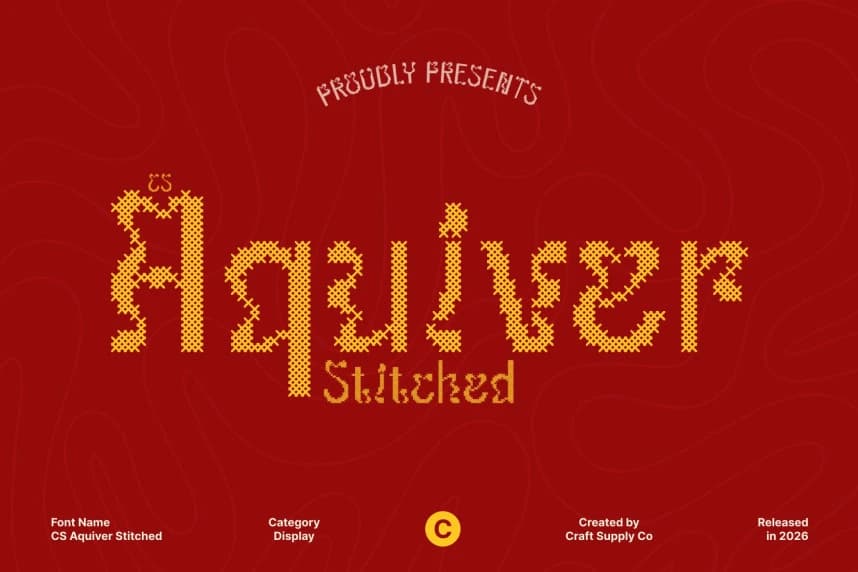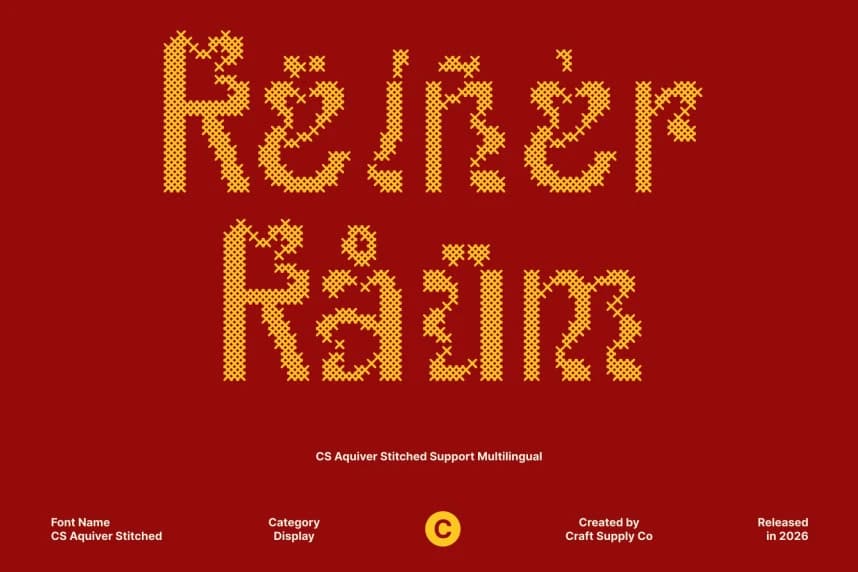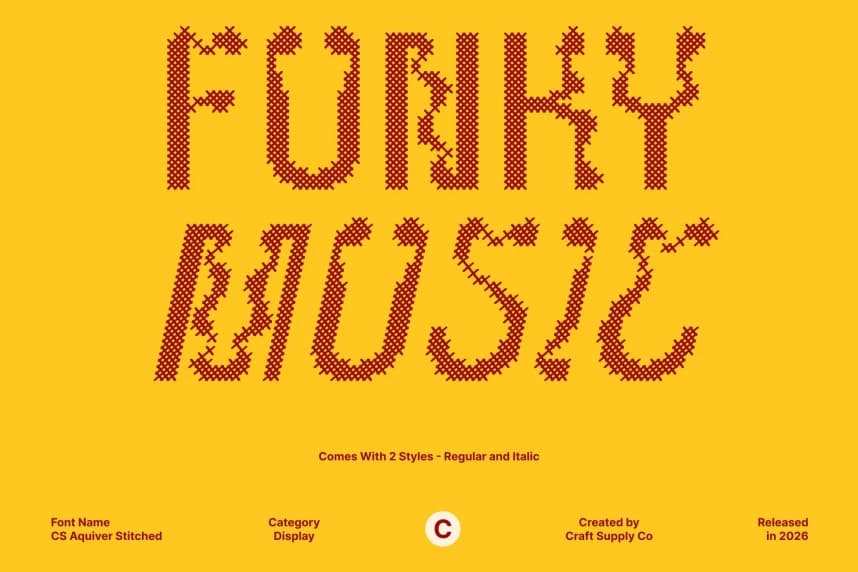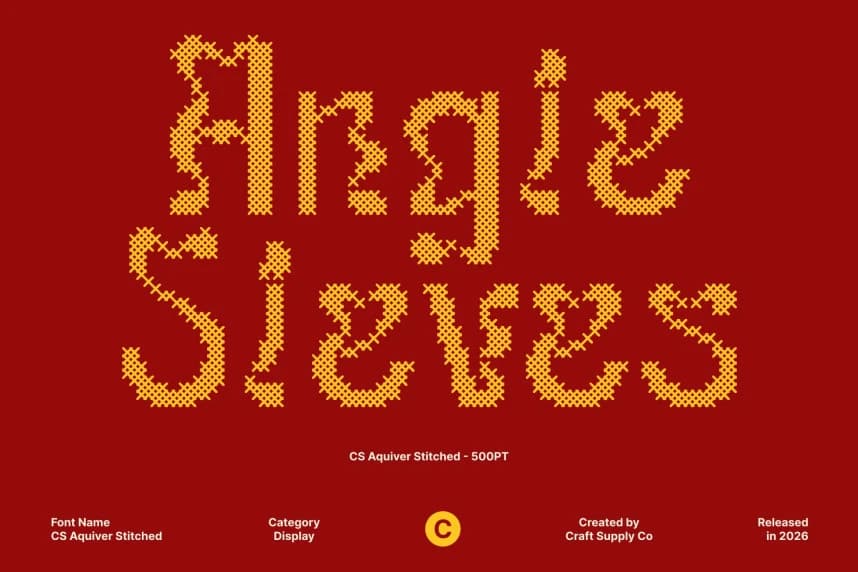
CS Aquiver Stitched Font
CS Aquiver Stitched Font – Psychedelic Display Font Bold Psychedelic Energy with Handcrafted Texture. This is a vibrant psychedelic display font featuring bold, expressive letterforms filled with trippy character.